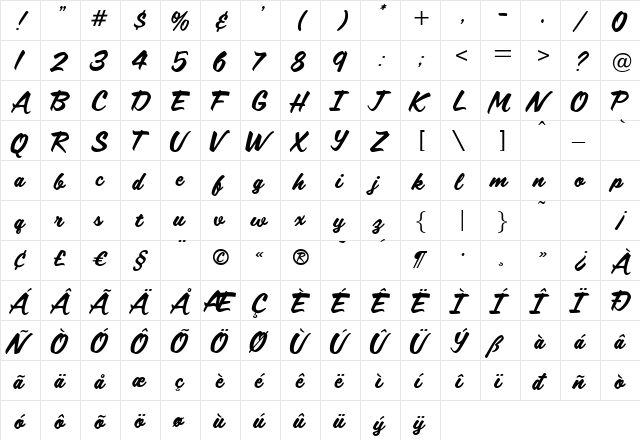
ScriptoramaTradeshowJF Regular
Design Context for ScriptoramaTradeshowJF Typeface
ScriptoramaTradeshowJF flows with the natural rhythm of handwritten lettering, making it ideal for designs that call for warmth and personal expression.
Font Pairing: Combine ScriptoramaTradeshowJF with a simple geometric sans for maximum contrast — the tension between flowing curves and clean structure is a classic typographic pairing.
Pro Tip: Pair ScriptoramaTradeshowJF with a clean sans-serif for supporting text. The contrast between fluid script and geometric structure creates an elegant typographic hierarchy.